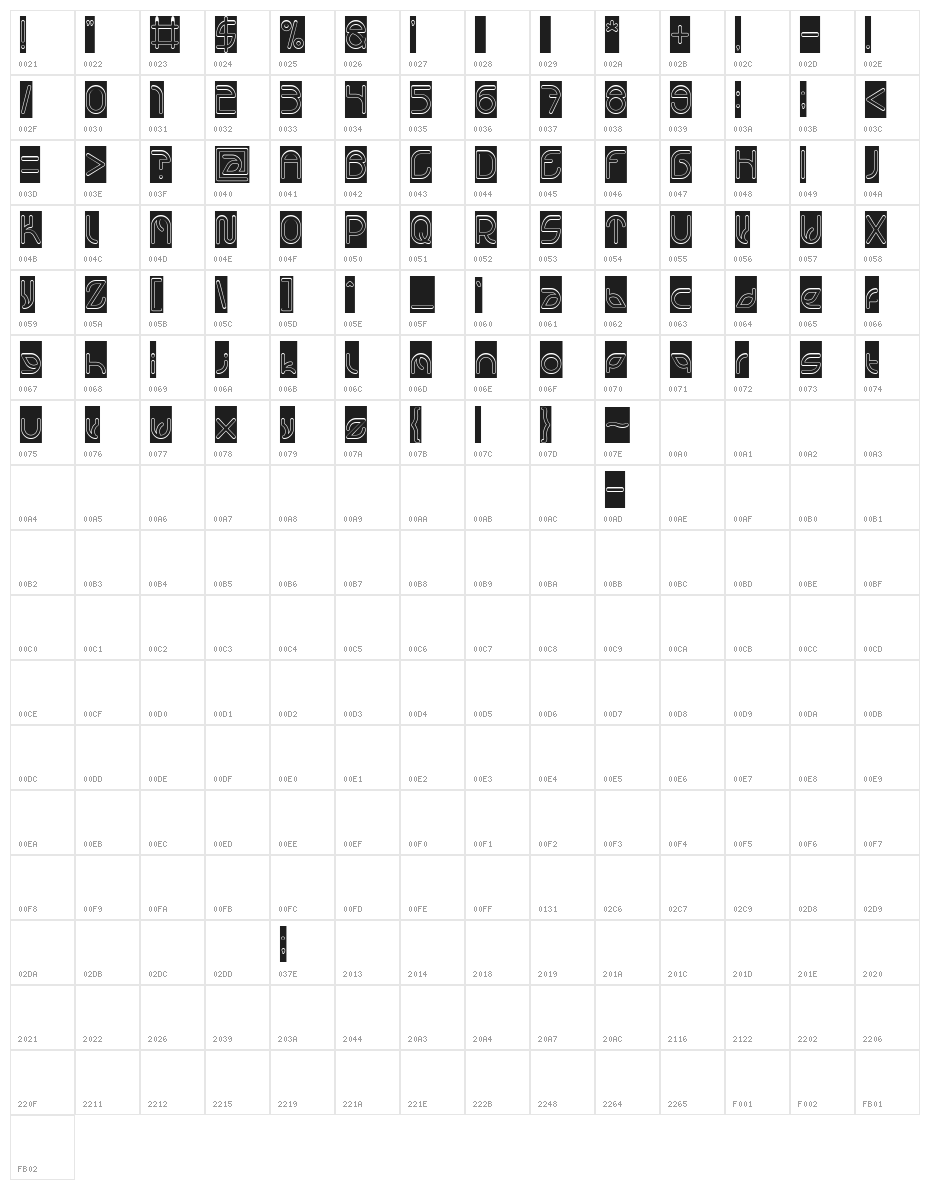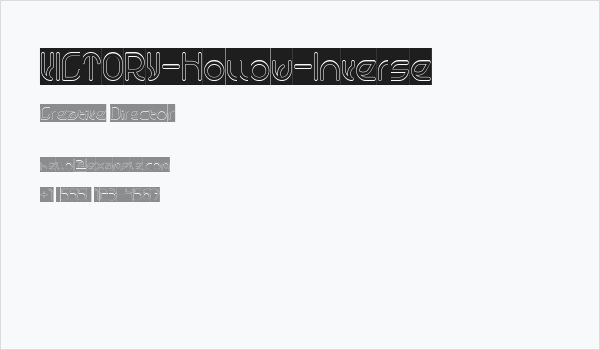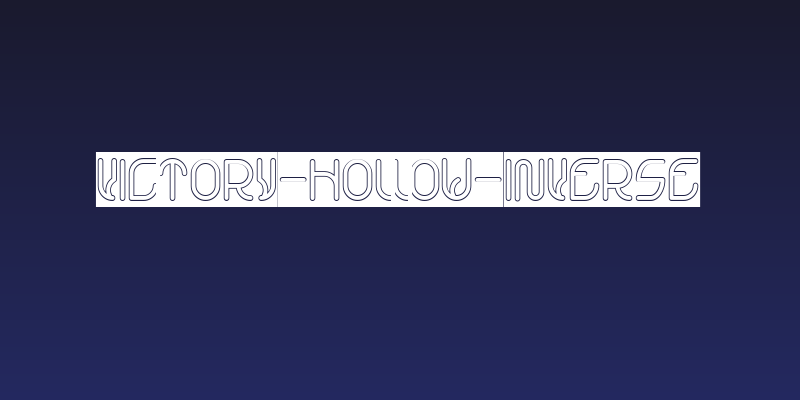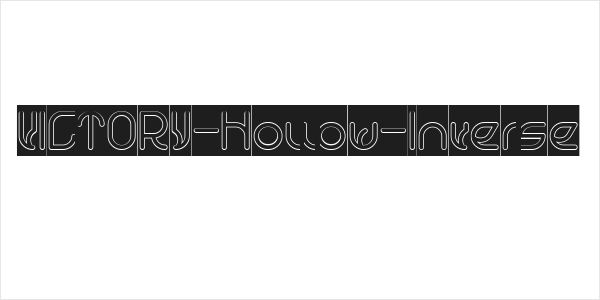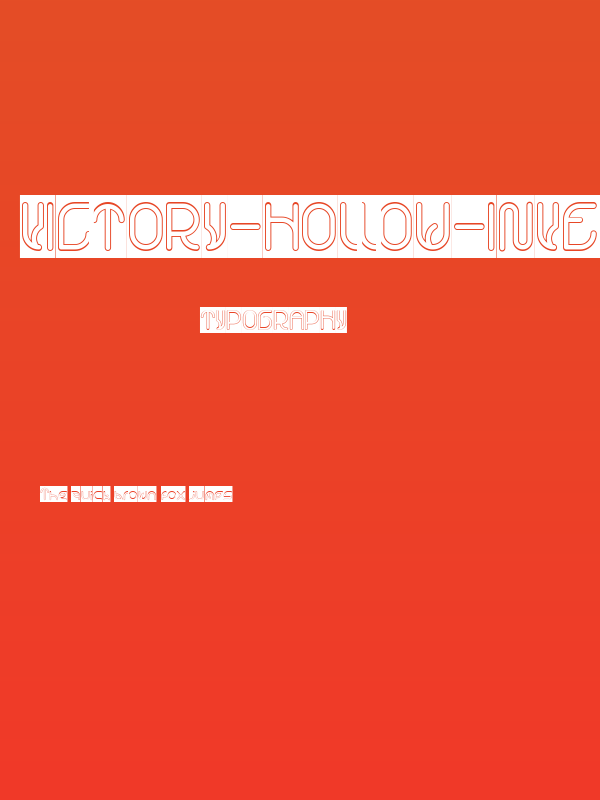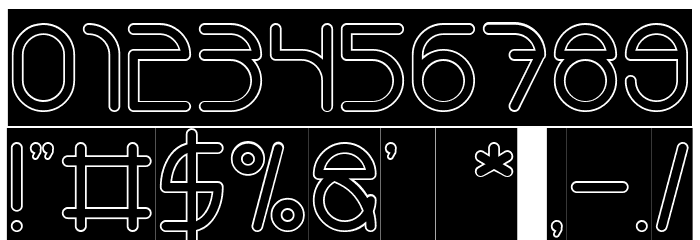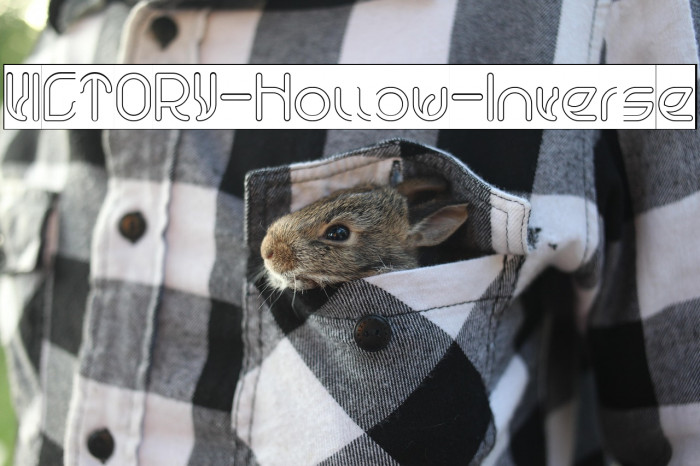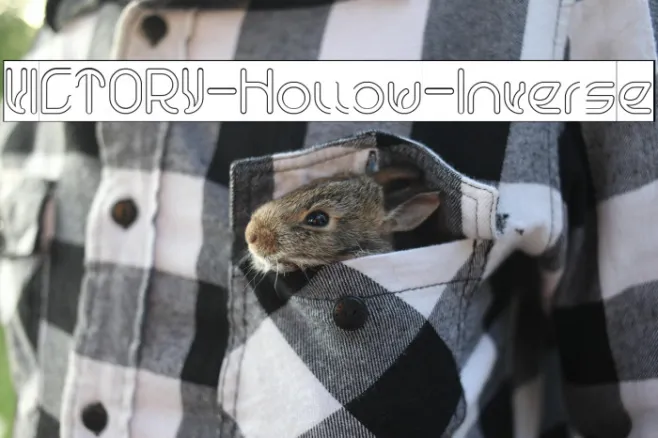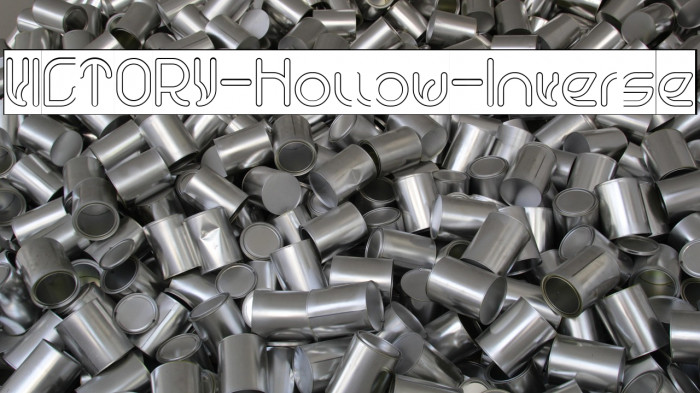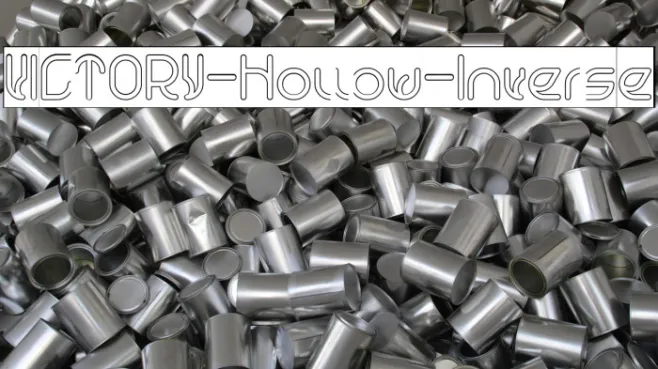
VICTORY-Hollow-Inverse Font
VICTORY-Hollow-Inverse Description
This font features a unique hollow design with an inverse style, creating a striking visual impact. The characters are formed with bold, continuous lines that outline each letter, number, and symbol, giving it a futuristic and modern appearance. The uppercase and lowercase letters maintain a consistent style, with rounded edges and smooth curves that enhance readability. The numerals and special characters follow the same design principles, ensuring uniformity across the font. This font's hollow nature makes it ideal for applications where a bold yet airy look is desired.
VICTORY-HOLLOW-INVERSE UPPERCASE
VICTORY-HOLLOW-INVERSE LOWERCASE
VICTORY-HOLLOW-INVERSE OTHER CHARS